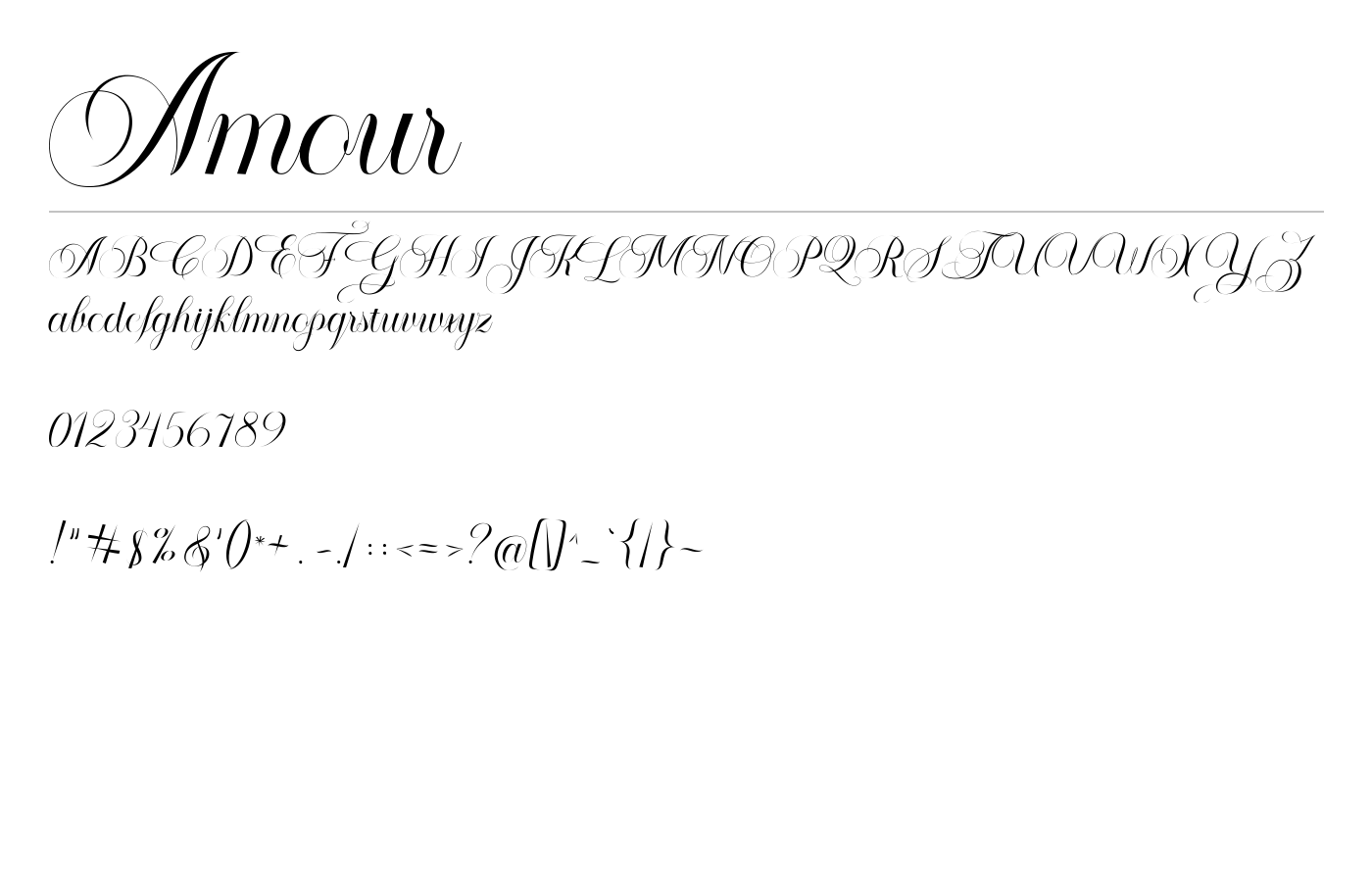
Amour is an elegant script font characterized by its delicate, high-contrast thin strokes and fluid, flowing letterforms with intricate swashes and flourishes. Its refined and graceful style lends a luxurious, romantic feel, making it ideal for invitations, fashion branding, and sophisticated editorial projects where a touch of classic beauty is desired. This font works best in large display uses, such as logos and headlines, where its exquisite details can truly shine.
Amour Font
About Amour Font
| Font family | Amour Font |
| Designer | Bosstype Studio |